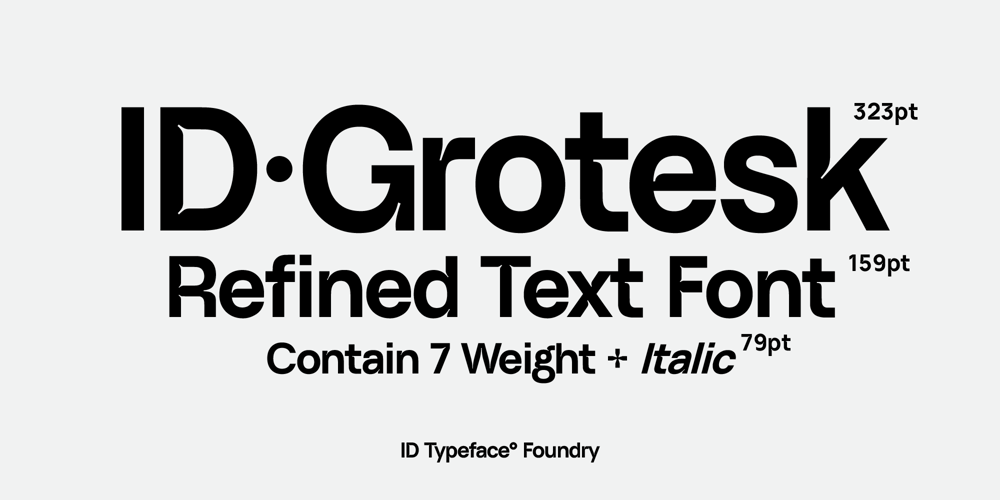
ID Grotesk Font Family was designed by Khairil Anwar and published by ID Typeface. ID Grotesk contains 14 styles and family package options. ID Grotesk is a contemporary typeface that combines modern design with a classic feel. Its unique inktraps add an intriguing touch, enhancing both aesthetics and legibility. Suitable for various projects, ID Grotesk is a versatile choice that brings a fresh twist to traditional typography. ID Grotesk boasts a comprehensive collection of 14 styles, including Thin, Light, Book, Regular, Medium, Semibold, Bold, and their corresponding italic variants.